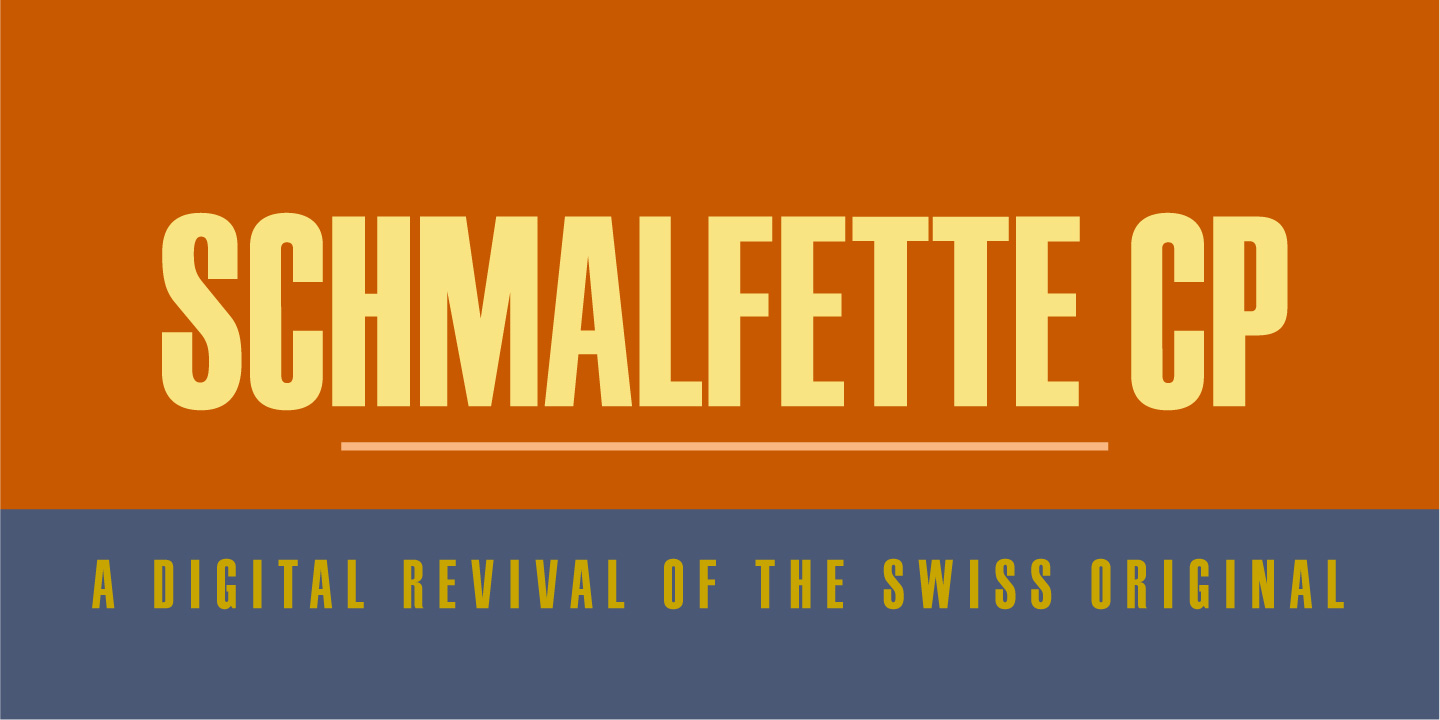
Schmalfette CP Font is ideal for German industrial branding, European manufacturing communications, precision engineering documentation, technical specification materials, systematic design projects, condensed signage systems, space-efficient layouts, professional documentation, Germanic business identity, and efficient typography applications. This systematic typeface creates authoritative industrial atmosphere in both technical print and digital engineering platforms.
What makes Schmalfette CP Font exciting is its masterful German engineering approach that maximizes space efficiency while maintaining exceptional readability and professional authority. The font features condensed letterforms with systematic proportions and industrial precision that reflect Germanic design principles and technical excellence. Its efficient design establishes an atmosphere of engineering expertise and systematic organization that resonates with technical professionals and industrial audiences.
Schmalfette CP Font family includes systematic variations: Light, Regular, Medium, Bold, and Heavy versions, each with condensed proportions and technical character sets. Each variant maintains the font's engineering efficiency while providing designers with systematic options for creating space-efficient typography layouts and professional communication materials.
This exceptional engineering typeface brings authentic German industrial credibility to projects requiring systematic presentation. Whether you're designing technical documentation, industrial branding, or engineering marketing materials, Schmalfette CP Font Free Download delivers outstanding efficiency and industrial sophistication. The font's condensed proportions and systematic details ensure optimal space utilization across various technical applications.
Engineering firms and industrial manufacturers recognize how Schmalfette CP Font perfectly embodies German precision and systematic design efficiency. Its engineering foundation combined with space optimization makes it essential for technical and industrial design projects. Download today and systematize your designs with this exceptionally efficient German typography.